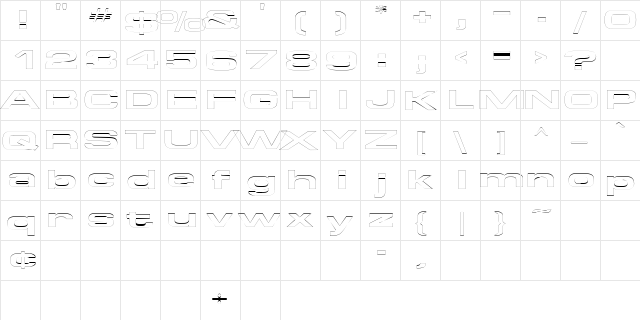
SupertouchOutline Regular
Design Context for SupertouchOutline Typeface
SupertouchOutline brings ornamental detail and strong personality to headlines and identities, where visual impact matters more than quiet functionality.
Font Pairing: Pair with a clean neutral sans-serif for body copy to let SupertouchOutline's character lead without overwhelming the composition.
Pro Tip: Use SupertouchOutline exclusively at display sizes — it was designed to be seen, not read at length. Let a neutral companion handle body copy.